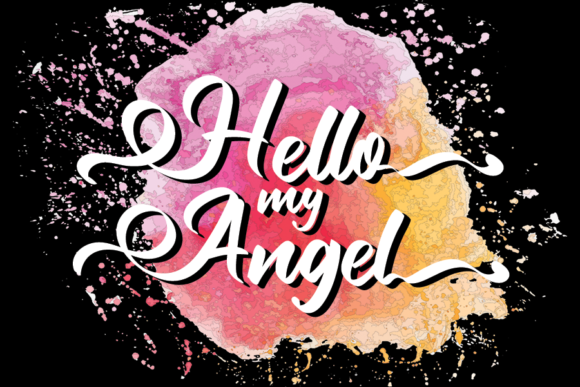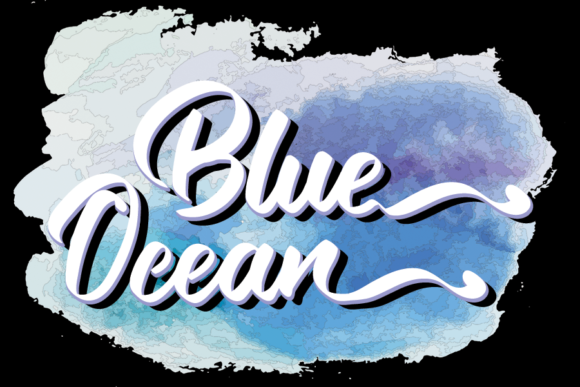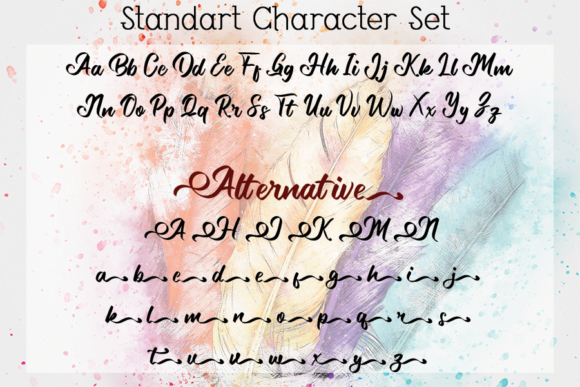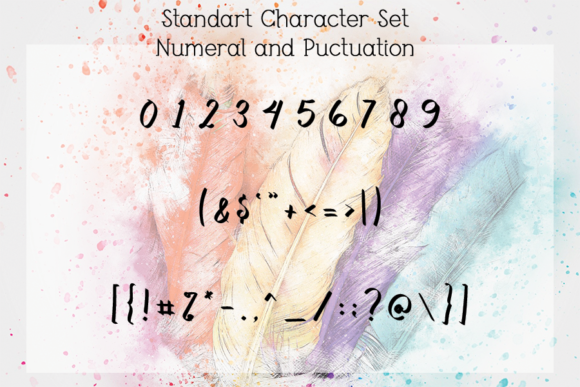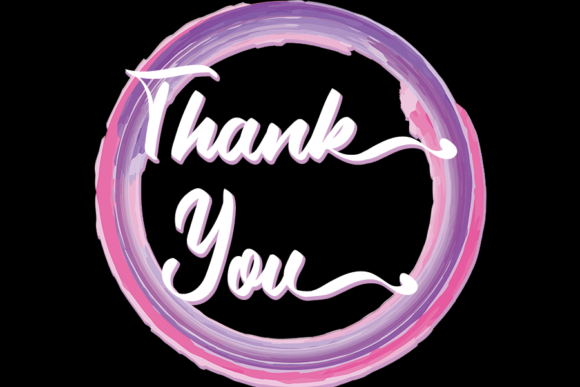
Make the Shade Font
About Make the Shade Font
Make The Shade is a flowing handwritten font, described by an elegant touch, perfect for your favorite projects. This font is PUA encoded which means you can access all of the glyphs and swashes with ease!